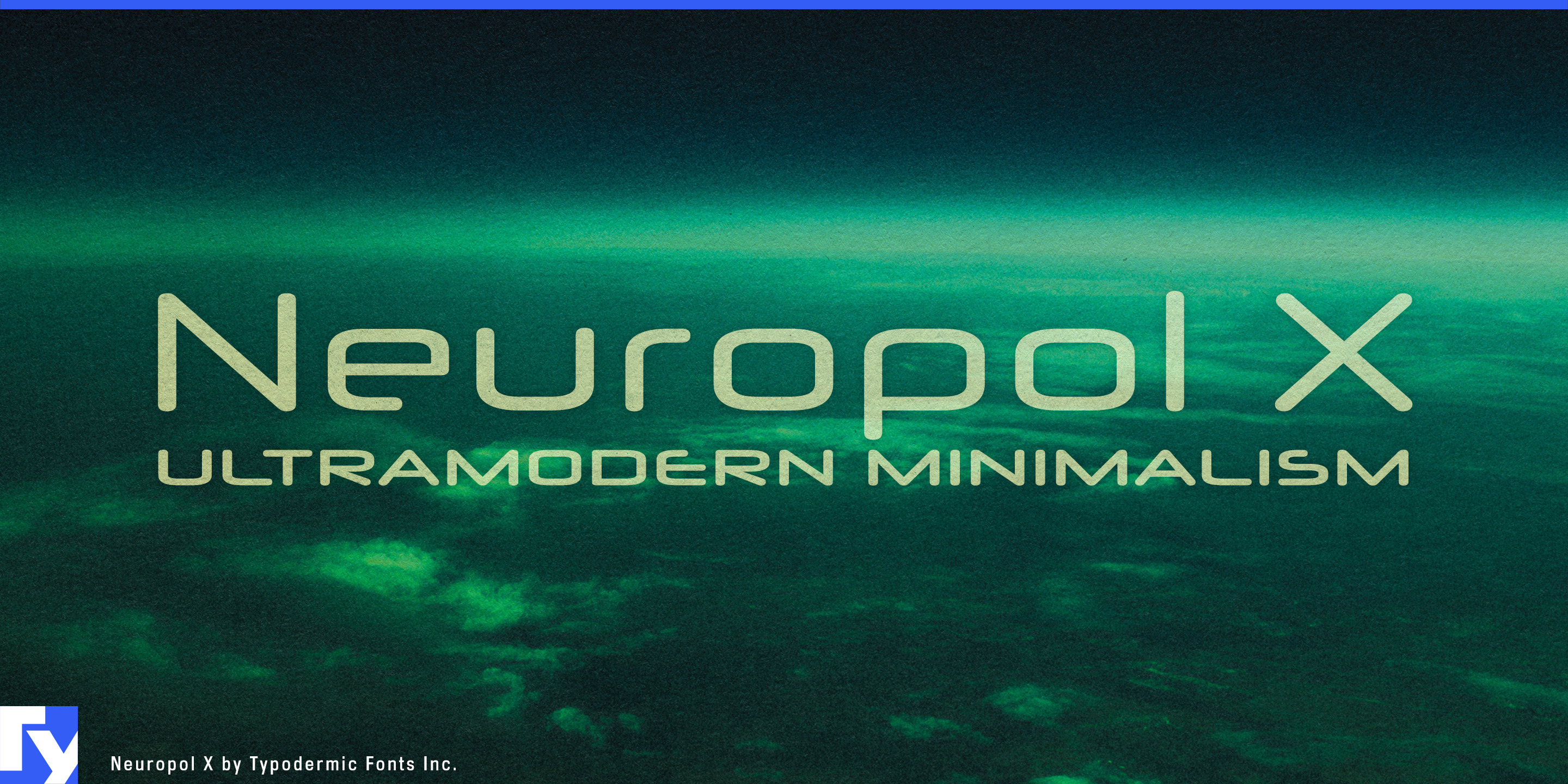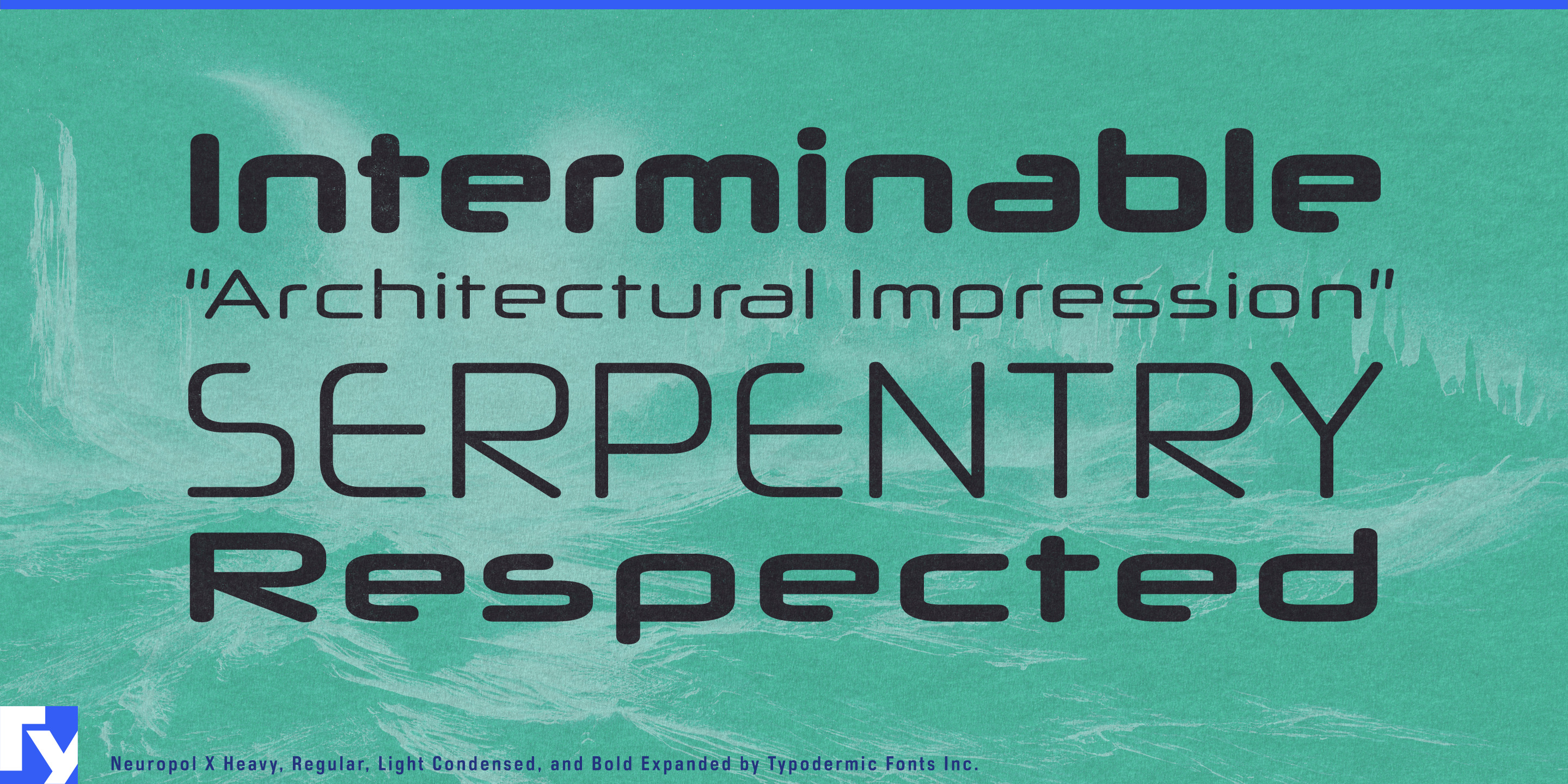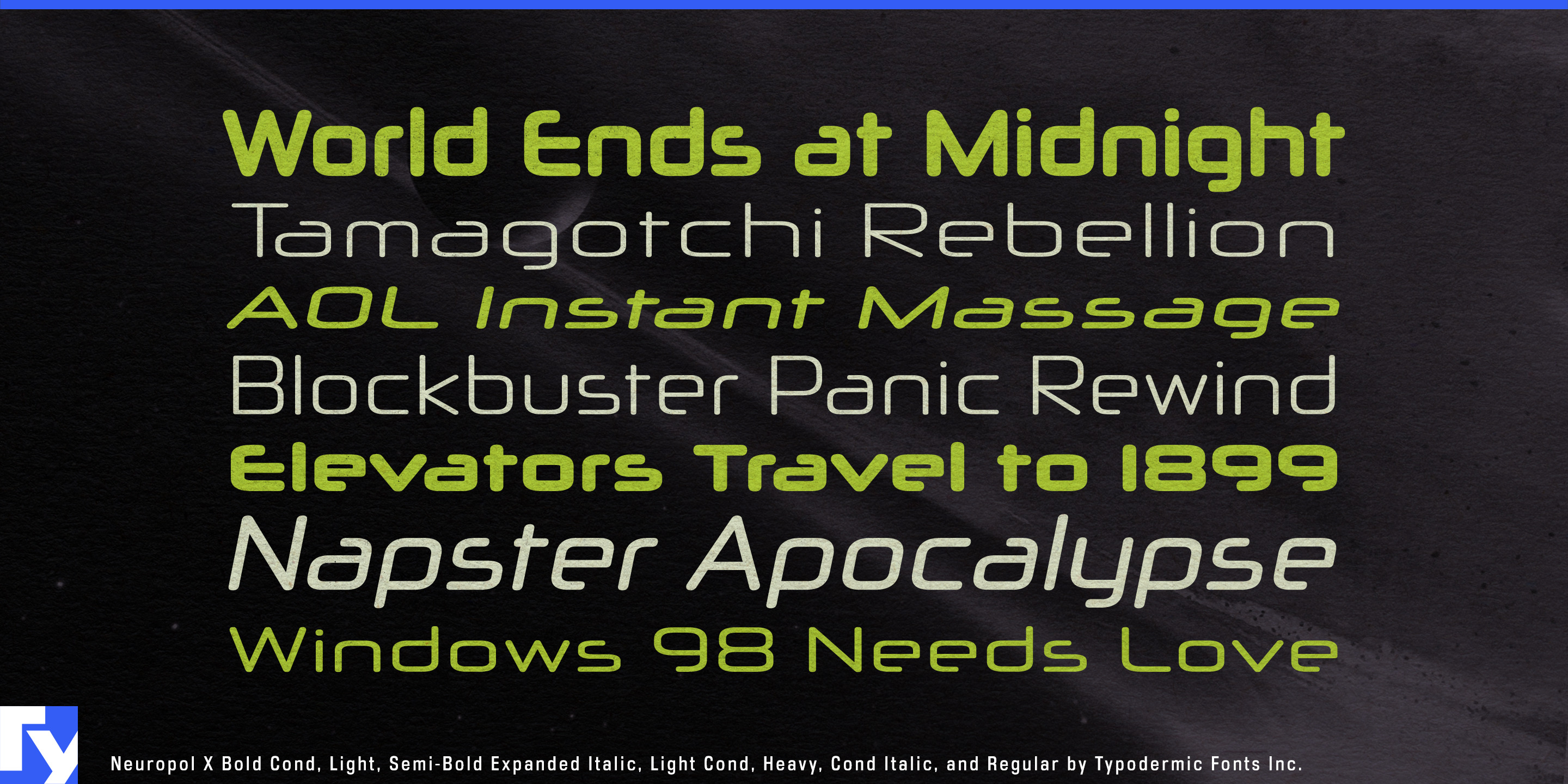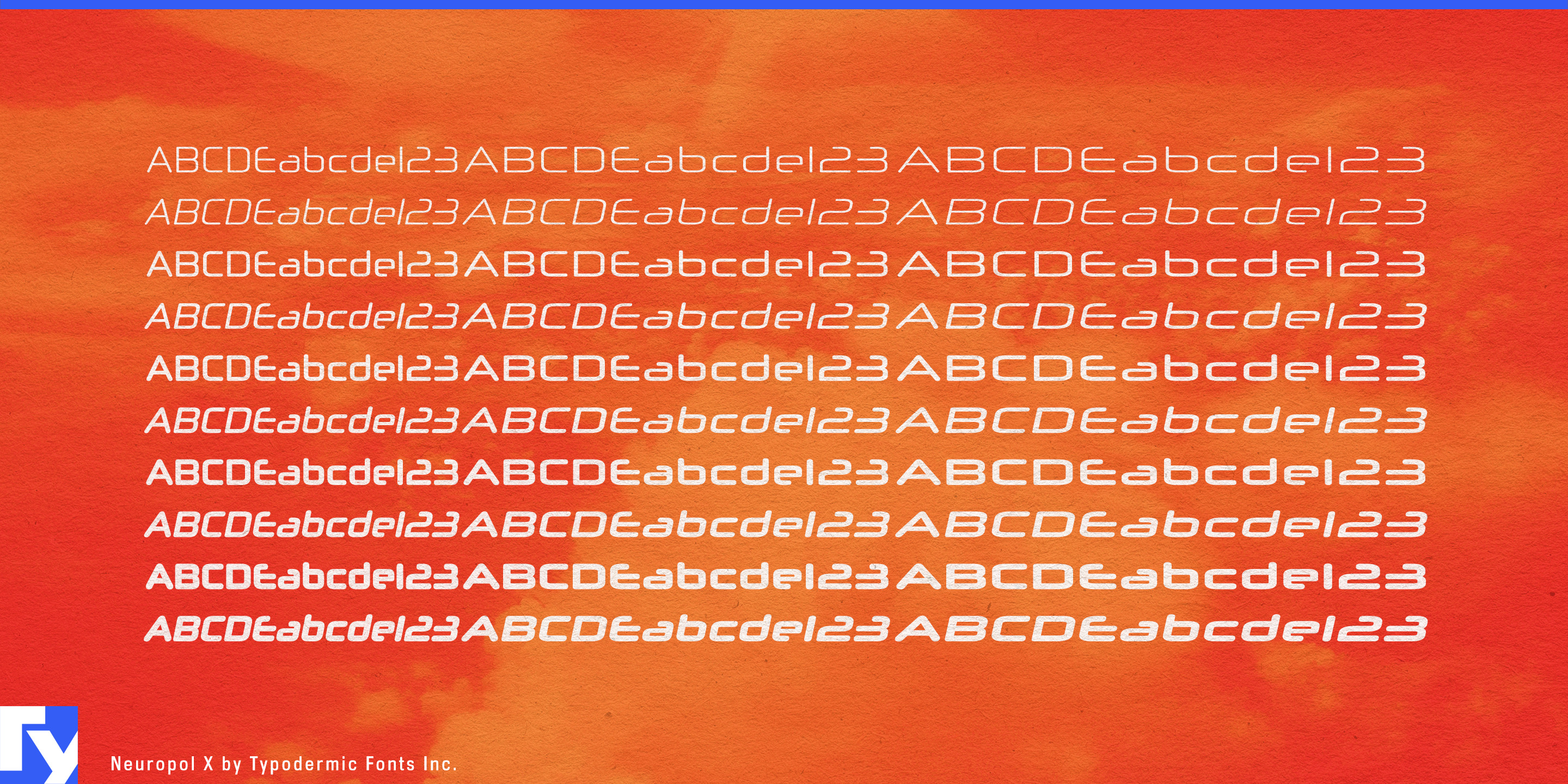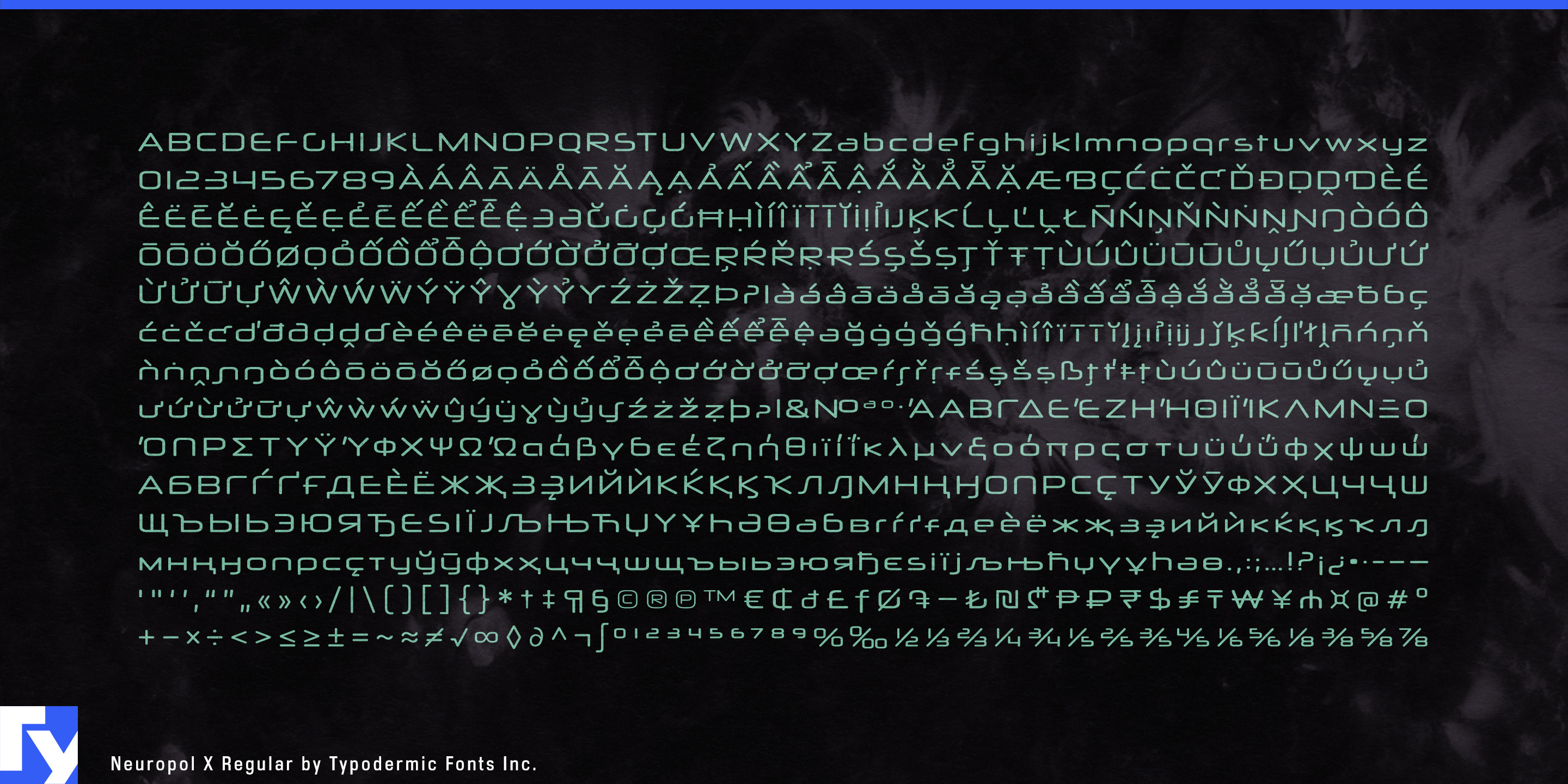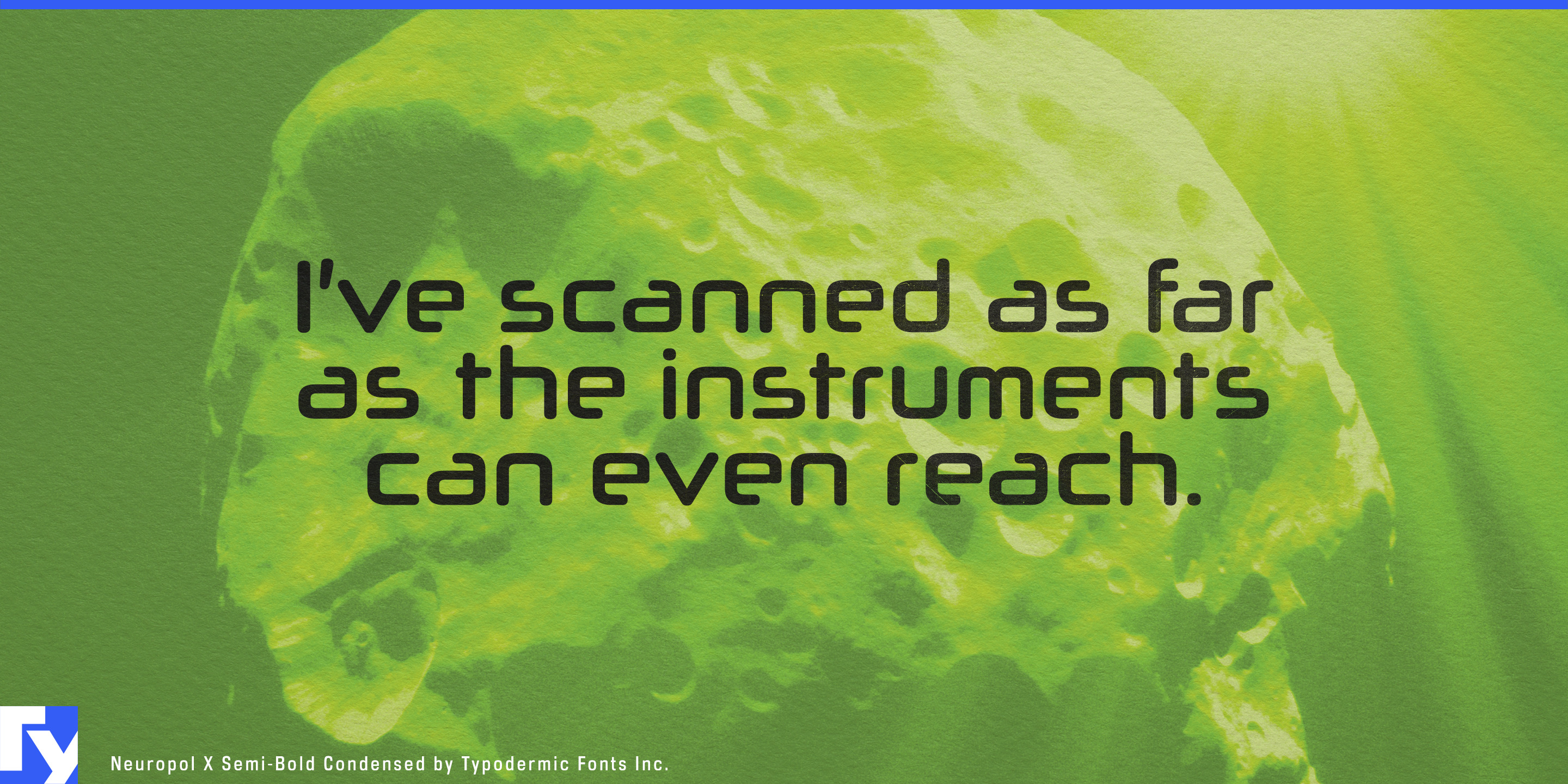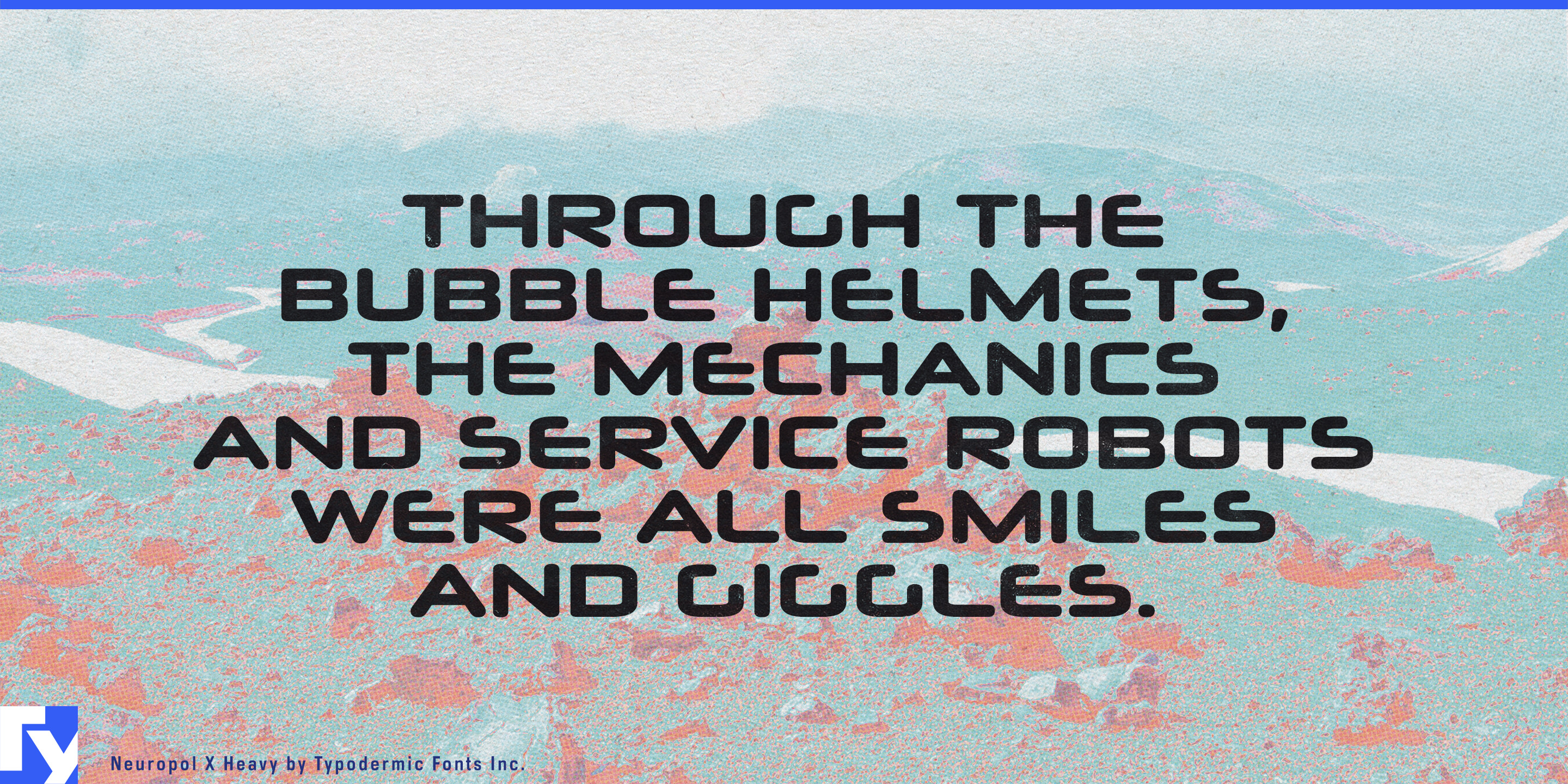
Neuropol X
Neuropol X is for projects that need an instantly recognizable high-tech visual language across more than one application. Its broad geometry, rounded construction, segmented forms, and extensive width range let the same identity move from enormous environmental graphics to compact equipment markings without losing its character.
AI compute and semiconductor hardware are especially strong territory. Accelerator cards, inference servers, liquid-cooled racks, optical-networking equipment, wafer-processing systems, chip-testing machinery, and advanced packaging equipment all need product families that can live on physical hardware as well as in launch campaigns, keynote presentations, benchmark graphics, trade-show environments, and partner materials.
Quantum computing presents a similar challenge. Processor families, cryogenic-control systems, networking platforms, laboratory hardware, and cloud-access services often need to be presented as one coherent technology stack even though the products themselves vary dramatically in scale and shape. Neuropol X can give those names and systems a common visual frame across laboratory photography, diagrams, conference booths, investor presentations, and keynote graphics.
Satellite communications, robotics, and autonomous systems extend the same vocabulary into physical infrastructure and motion. Flat-panel terminals, phased-array antennas, humanoid robots, warehouse fleets, self-driving shuttles, delivery robots, sensor platforms, and vehicle-compute systems need identities across machine housings, charging stations, test fleets, equipment panels, demonstration arenas, aerospace shows, and launch environments.
Science-fiction entertainment can use the family in a more deliberate way. A game, streaming series, or licensed property may need an expansion title, faction names, spacecraft classes, equipment labels, location headings, collector packaging, convention graphics, merchandise, trailers, and localized campaign material. Neuropol X gives those elements enough range to feel related without forcing every application into the same width or scale.
Large technology exhibitions bring these uses together. AI infrastructure pavilions, semiconductor conferences, aerospace shows, robotics showcases, and autonomous-systems halls require giant environmental words, stage graphics, directional panels, narrow category strips, product-family headings, programme graphics, and sponsor material.
Neuropol established a visual shorthand for advanced technology. Neuropol X turns that shorthand into a working family for projects large enough to need it across hardware, environments, presentations, campaigns, and entertainment systems.
- Geometric, Rounded, Low contrast
- Mixed
- Dual purpose
- Open counters